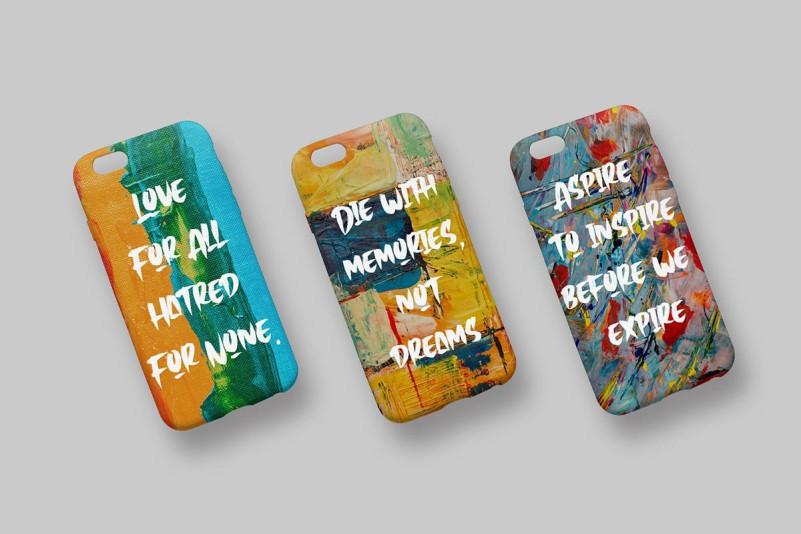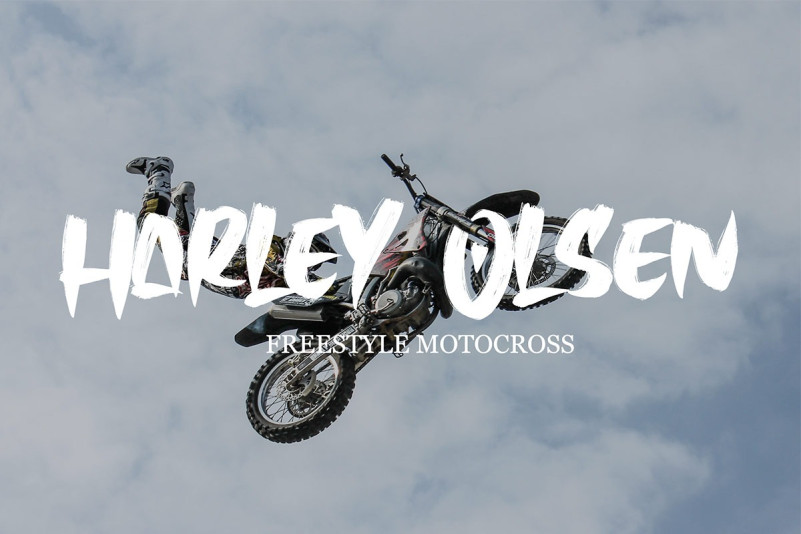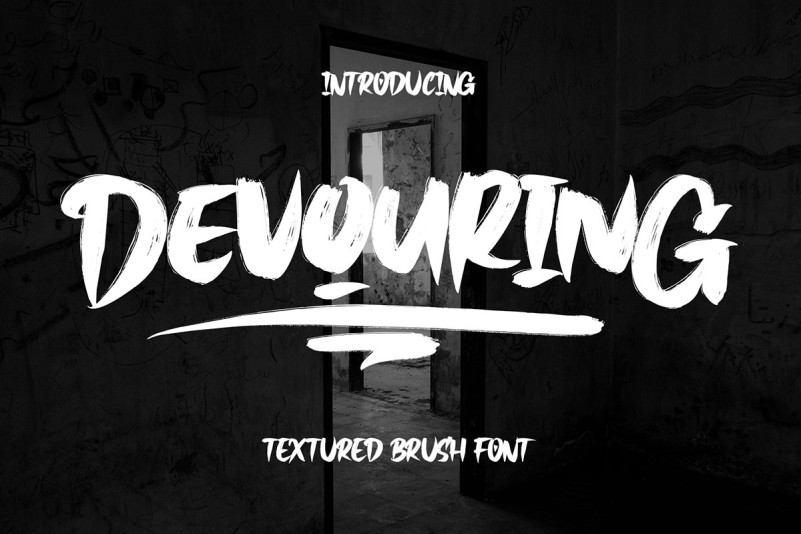
Devouring Font
Devouring Brush Font, this font was created for all forms of business and branding such as clothing, logos, skate boards and others according to your needs.